Calligraphy fonts are more than just beautiful—they’re transformative.
There’s something timeless about their flowing strokes and handcrafted elegance. They can take a design from nice to unforgettable with just a few graceful curves. As a graphic designer who’s obsessed with the details, I find myself turning to calligraphy fonts whenever I want to add depth, warmth, or a little bit of drama.
These fonts aren’t just for weddings and formal events (though they shine there too). They’re perfect for high-end branding, personal projects, packaging, and anywhere you want to create an emotional connection with your audience.
In this post, we’re diving deep into the world of calligraphy fonts—from the subtle scripts that whisper sophistication to the bold, sweeping styles that command attention. Whether you’re after romance, refinement, or a touch of vintage flair, there’s a typeface here for you.
31 Elegant Calligraphy Fonts of 2026
Mockingbird
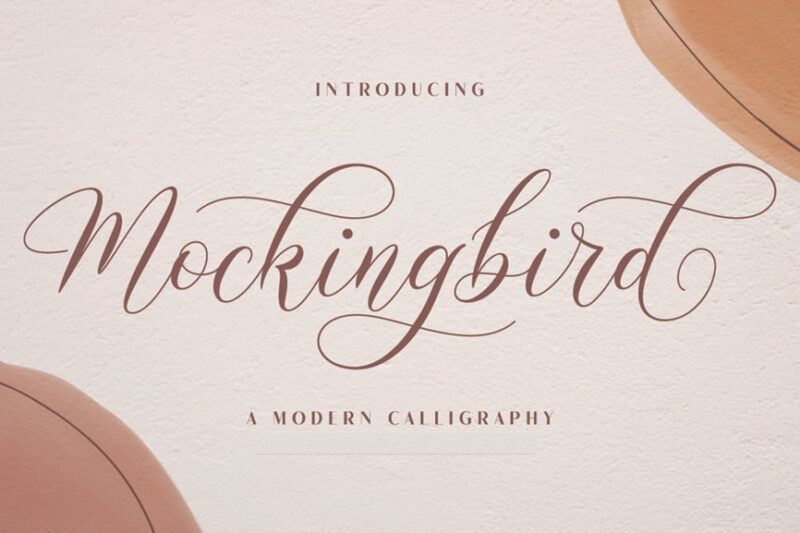
Mockingbird is a versatile modern calligraphy font ideal for wedding invitations and romantic designs. Its graceful curves and delicate flourishes add a touch of elegance to any project.
Madista Calligraphy
Madista Calligraphy is a decorative script font with a classical feel. Its ornate letterforms and flowing connections make it perfect for creating elegant and sophisticated designs with a timeless appeal.
Callestany
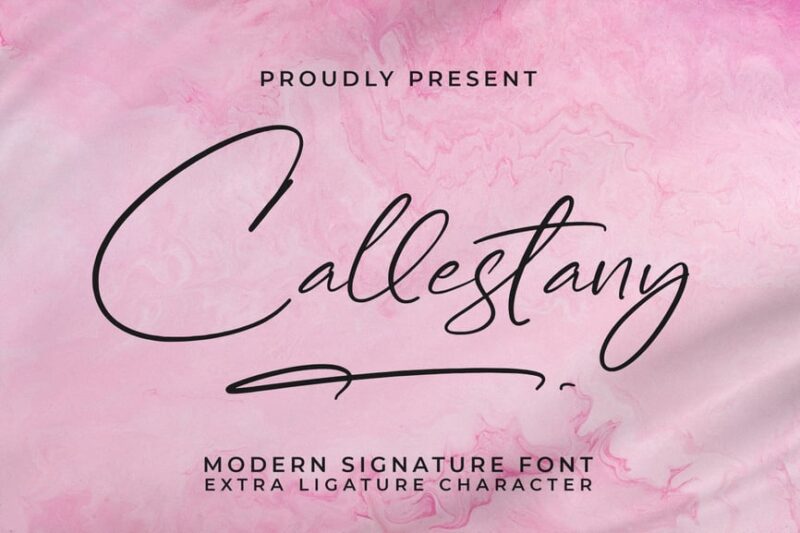
Callestany is a script font that mimics natural handwriting, ideal for signature-style designs. Its casual yet refined appearance makes it versatile for both personal and professional projects.
Minoesta
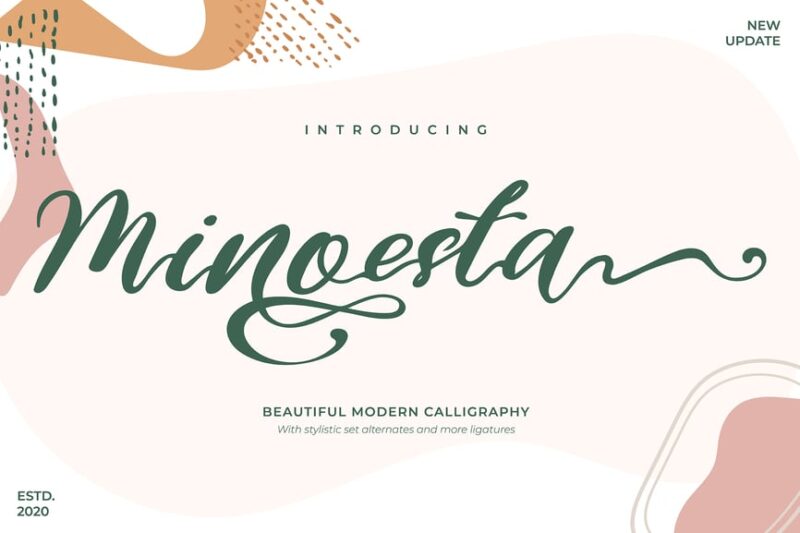
Minoesta is a beautiful modern calligraphy font with graceful curves and smooth transitions. Its elegant and contemporary style makes it perfect for high-end branding, wedding stationery, and luxurious packaging designs.
Delichan
Delichan is a beautiful modern calligraphy font that balances elegance with a casual feel. Its flowing lines and subtle irregularities create a natural, handwritten look perfect for both formal and informal designs.
Beauty Sahara
Beauty Sahara is a calligraphy font with a brush-like texture, adding a unique character to designs. Its organic strokes and varying line weights create a dynamic and expressive appearance suitable for artistic projects.
Bidaq
Bidaq is a handwriting script font that features natural-looking ligatures and connections. Its fluid and consistent style makes it ideal for creating authentic handwritten designs with a polished finish.
Calligraphy/Cursive Font
This Calligraphy/Cursive Font combines traditional calligraphy with modern cursive writing. Its versatile style makes it suitable for a wide range of projects, from formal invitations to casual social media graphics.
Bermalony
Bermalony is a modern script calligraphy font that strikes a balance between elegance and readability. Its clean lines and subtle flourishes make it ideal for both digital and print applications, especially in branding and packaging design.
Leisha Script
Leisha Script is a flowing handwritten font with a contemporary flair. Its smooth connections and balanced letterforms create a harmonious look, perfect for creating designs with a personal and approachable touch.
Richard Blooksy Calligraphy Script
Richard Blooksy is a calligraphy script font with a distinctive personality, ideal for branding projects. Its unique character and flowing style make it stand out in logo designs and headlines.
Baby Bday
Baby Bday is a cute brush calligraphy font perfect for baby-related designs. Its playful and whimsical style adds a charming touch to invitations, greeting cards, and children’s product packaging.
Stephanie Script Font
Stephanie Script Font is a digital calligraphy typeface that combines elegance with readability. Its balanced letterforms and subtle variations make it suitable for both large headlines and body text in digital designs.
Sanggria
Sanggria is a decorative calligraphic font with a bold and expressive character. Its dramatic swashes and ornate letterforms make it ideal for creating eye-catching headlines and logo designs with a touch of sophistication.
Overthinking
Overthinking is a modern calligraphy font that captures the essence of spontaneous handwriting. Its slightly irregular letterforms and natural flow create an authentic and relatable feel, perfect for designs that aim to connect with audiences on a personal level.
So the next time you’re considering typography options, don’t overlook the power of beautiful lettering. In our fast-paced digital world, sometimes the most impactful choice is to slow down and appreciate the timeless art of calligraphy.